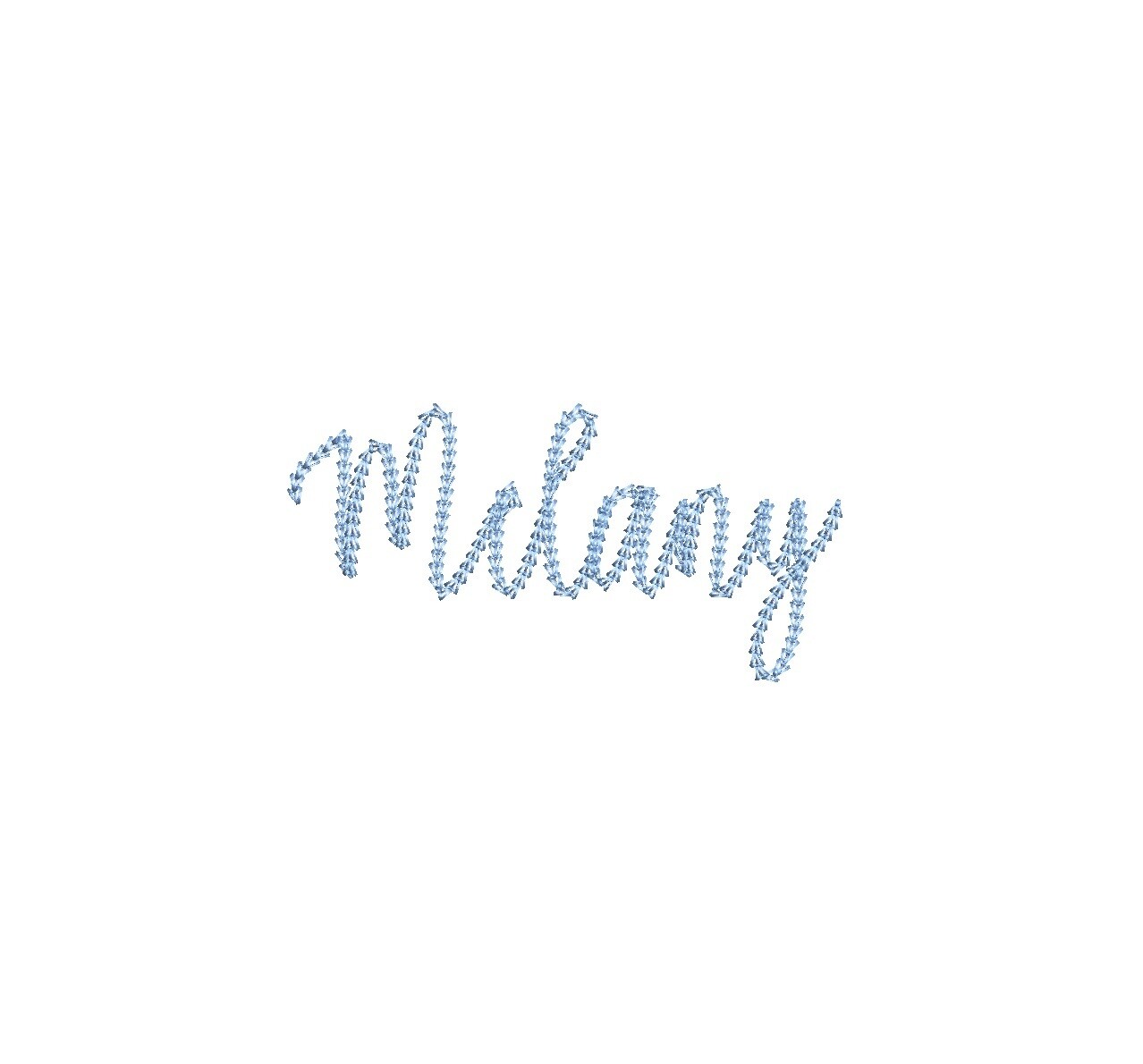
Elevate your embroidery projects with Melany Chain Stitch ESA font, tailored for compatibility with Wilcom Studio e4.5.6 and Hatch 3 versions and above. Infuse your designs with the charm of intricate chain stitch detailing, enhancing every creation with timeless elegance. Seamlessly craft monograms, labels, and embellishments, effortlessly elevating your embroidery game. Experience a smooth integration process and unlock limitless creative potential. Download Melany Chain Stitch ESA font today to witness your designs flourish. Transform your embroidery into an art form, making each piece a testament to your creativity and skill. Elevate your projects with this exceptional font.